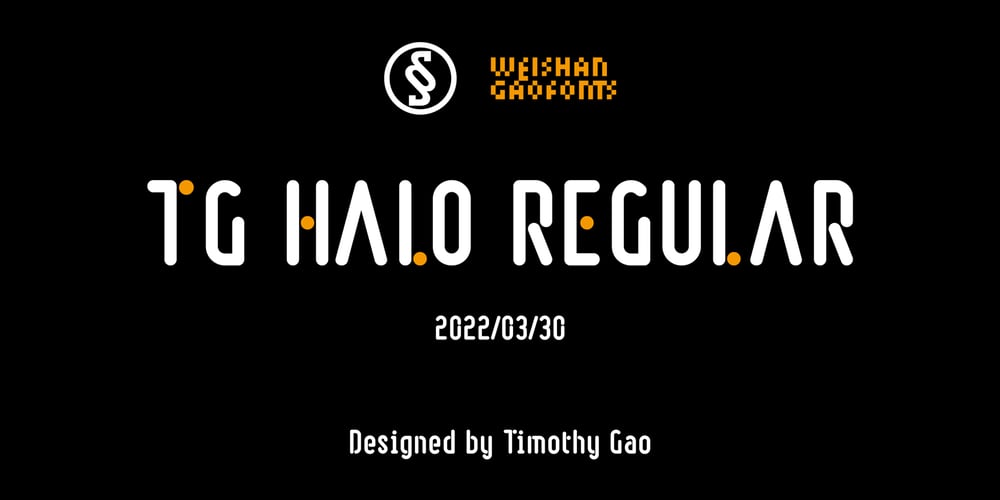
TG Halo Font Family was designed by Weishan Gao and published by Weishan Gao. TG Halo contains 1 styles and family package options. TG HALO font is a relatively round font, which can be used in catering industry, children’s products and so on. The application of title and text can be well recognized.